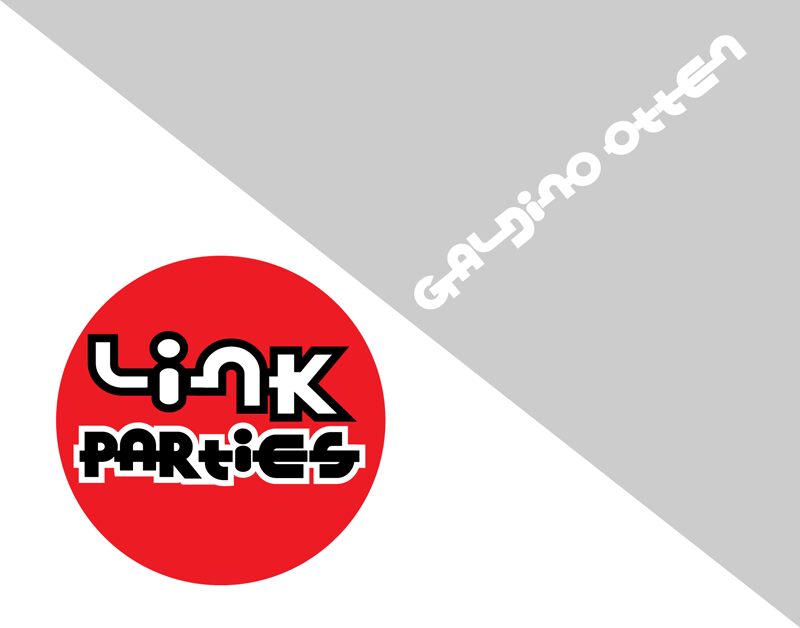
Link Parties, a free futuristic display font by Galdino Otten, uses massive geometric forms and rounded bowls to create a dense, mechanical silhouette. Its deep horizontal cuts and abrupt joins make the lettering look assembled from interlocking machine parts rather than drawn with continuous strokes.
Game title cards are its most convincing role. The same industrial geometry also suits electronic music posters, tech event branding, and sci-fi merchandise, where the letters can become part of a larger mechanical graphic.